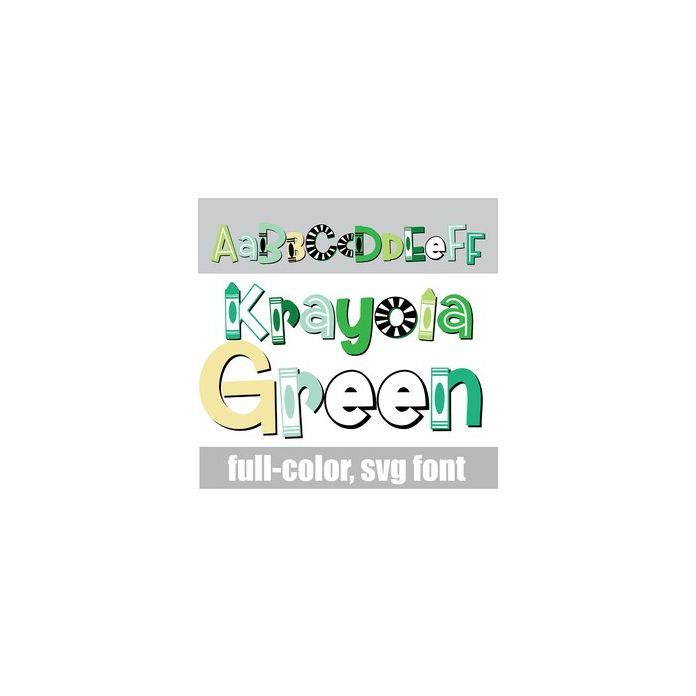
This full-color font features a crayon-inspired alphabet in a green color palette. There is an alt case w/ additional colors you can access through your system or Silhouette's glyph map.